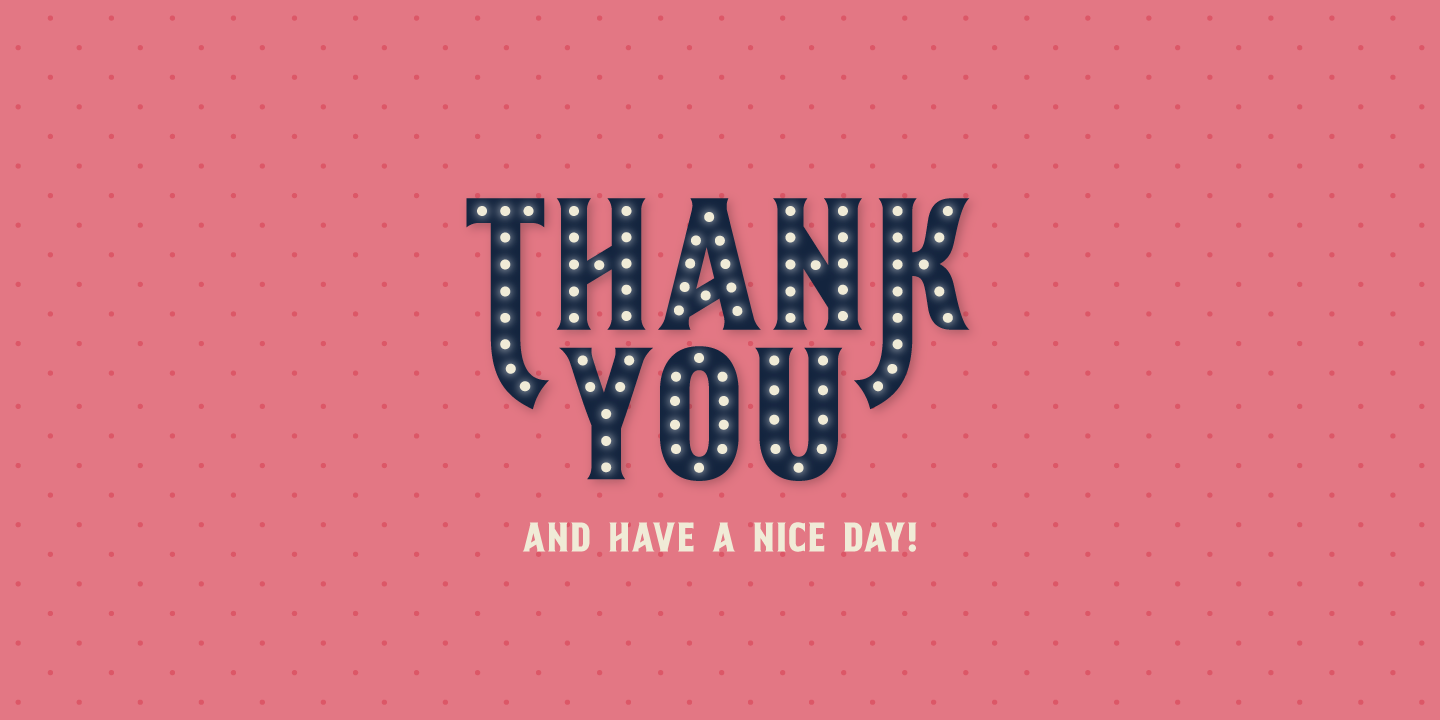
Shining Night Font is perfect for nightclub branding, evening event promotions, constellation-themed designs, stargazing app interfaces, nocturnal lifestyle campaigns, midnight movie posters, celestial jewelry packaging, astronomy publications, romantic moonlight materials, and luminous marketing communications.
Shining Night Font is exciting because it captures the magical allure of nighttime splendor with its luminous letterforms that seem to twinkle like distant stars against the velvet darkness of night sky. Its enchanting character design reflects both the mysterious beauty of nocturnal hours and the brilliant sparkle of celestial bodies, creating a distinctive voice that speaks to dreamers and night owls who find inspiration in darkness illuminated by natural light.
Shining Night Font family includes thin, light, regular, medium, bold, and black weights, each with corresponding italic versions. The font family also features celestial ornaments, star-inspired ligatures, moonlight decorative elements, and nocturnal symbols that enhance its luminous aesthetic and versatility.
This celestially beautiful typeface represents the perfect fusion of nocturnal mystery and brilliant illumination. Shining Night Font Free Download allows designers to explore its starlit possibilities before making a commercial commitment. The font's ability to convey both nighttime magic and brilliant radiance makes it ideal for brands targeting evening entertainment, astronomy enthusiasts, and romantic experiences.
Whether you're developing nightlife brand identities, creating celestial event materials, or designing romantic evening communications, Shining Night Font brings an unmistakable sense of nocturnal magic and starlit beauty to every project. Its luminous character and celestial heritage create powerful connections that resonate with audiences who find wonder in the night sky and beauty in darkness.
The font's versatility excels in entertainment and romantic environments where atmosphere and celestial appeal are paramount. Its shining character makes it particularly effective for nightclubs, astronomy organizations, romantic venues, and evening entertainment brands seeking to establish magical connections with night-loving audiences.
For designers working on projects requiring authentic nocturnal magic and celestial appeal, Shining Night Font offers an exceptional solution. Its luminous presence and comprehensive starlit elements provide the tools needed for creating truly enchanting communications, while its brilliant beauty ensures your designs capture the mesmerizing wonder of nights illuminated by natural celestial splendor.